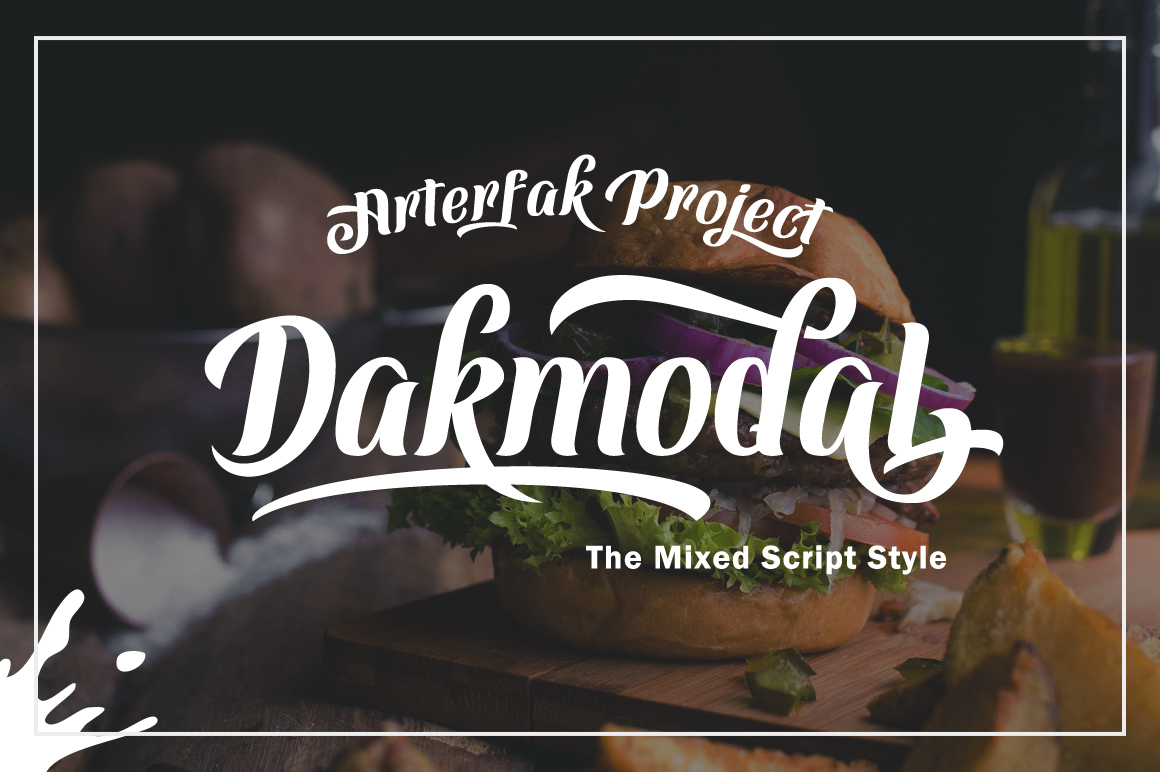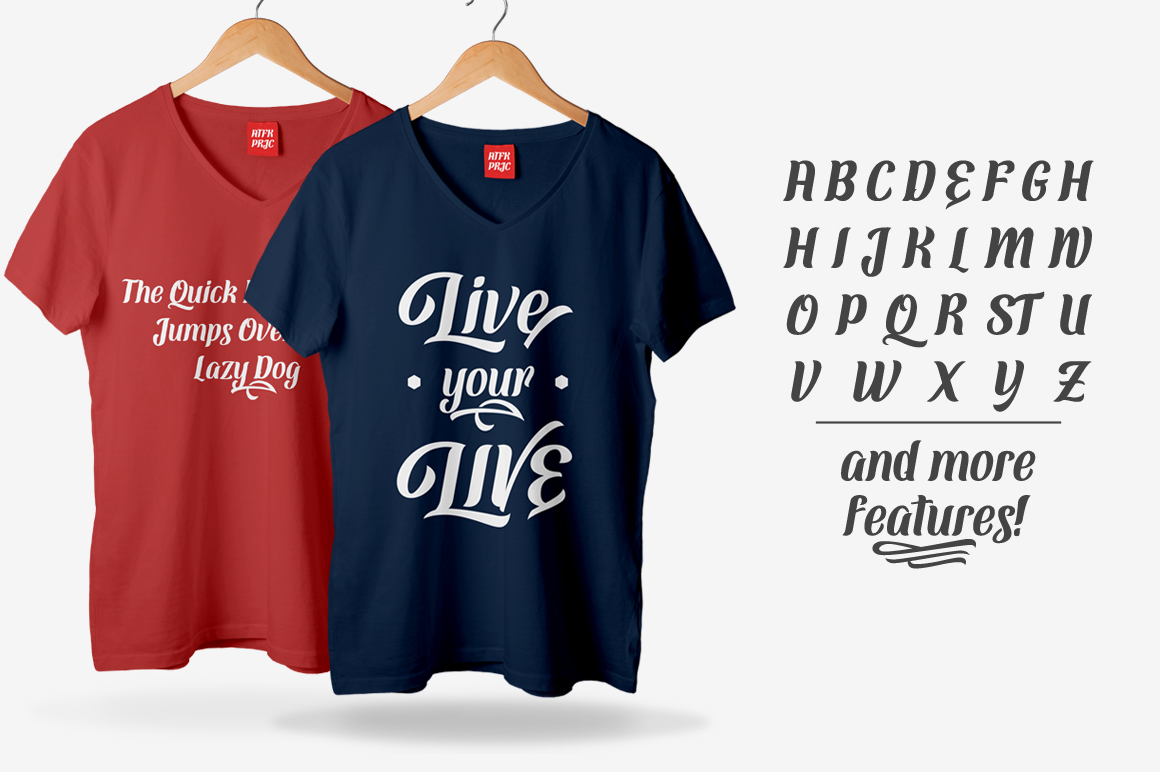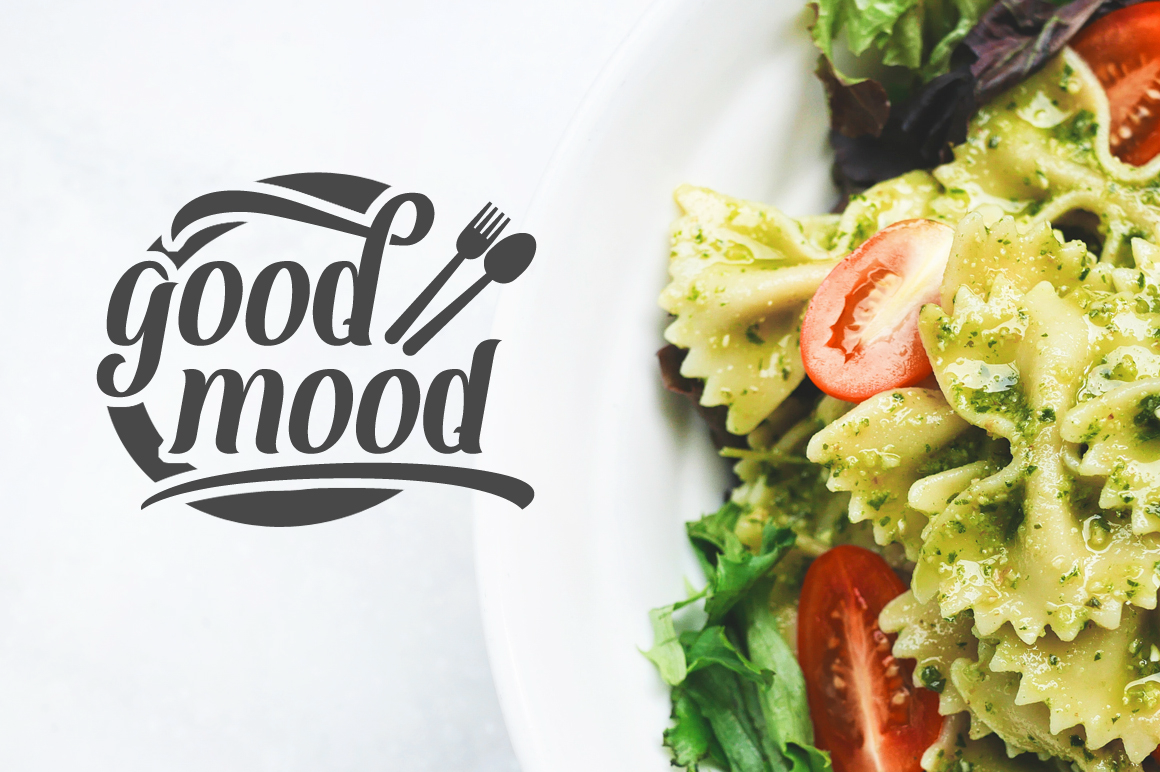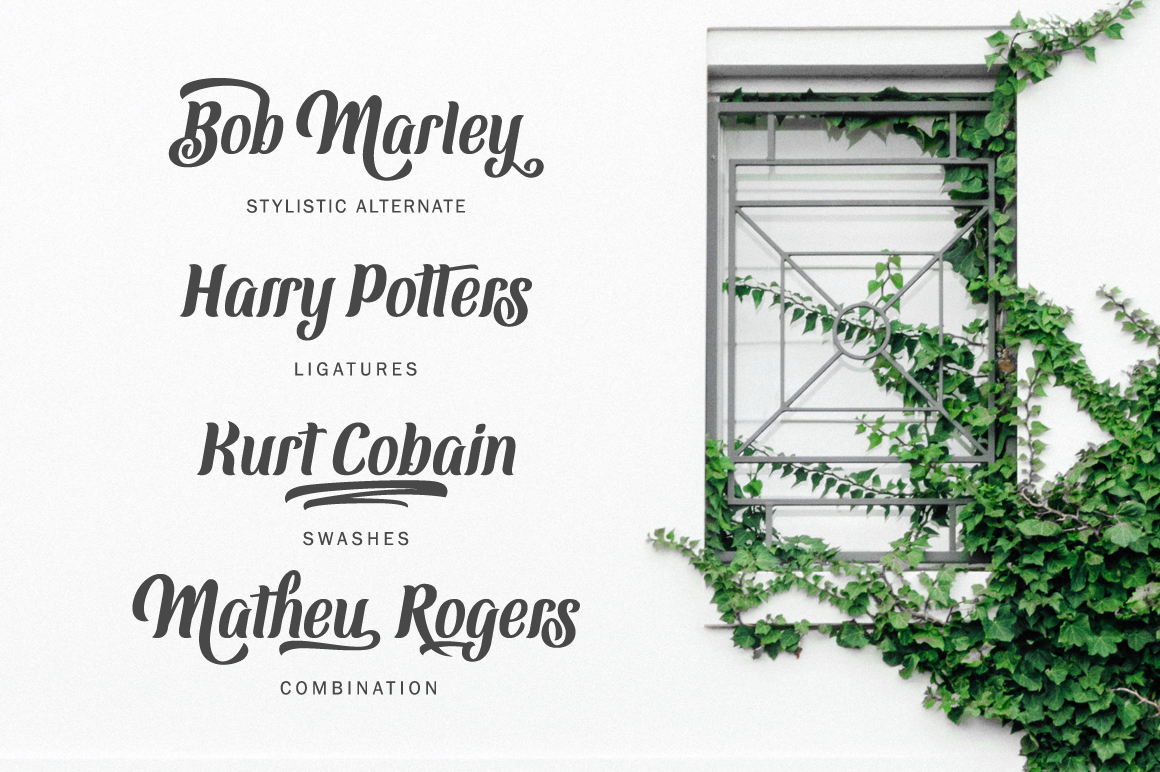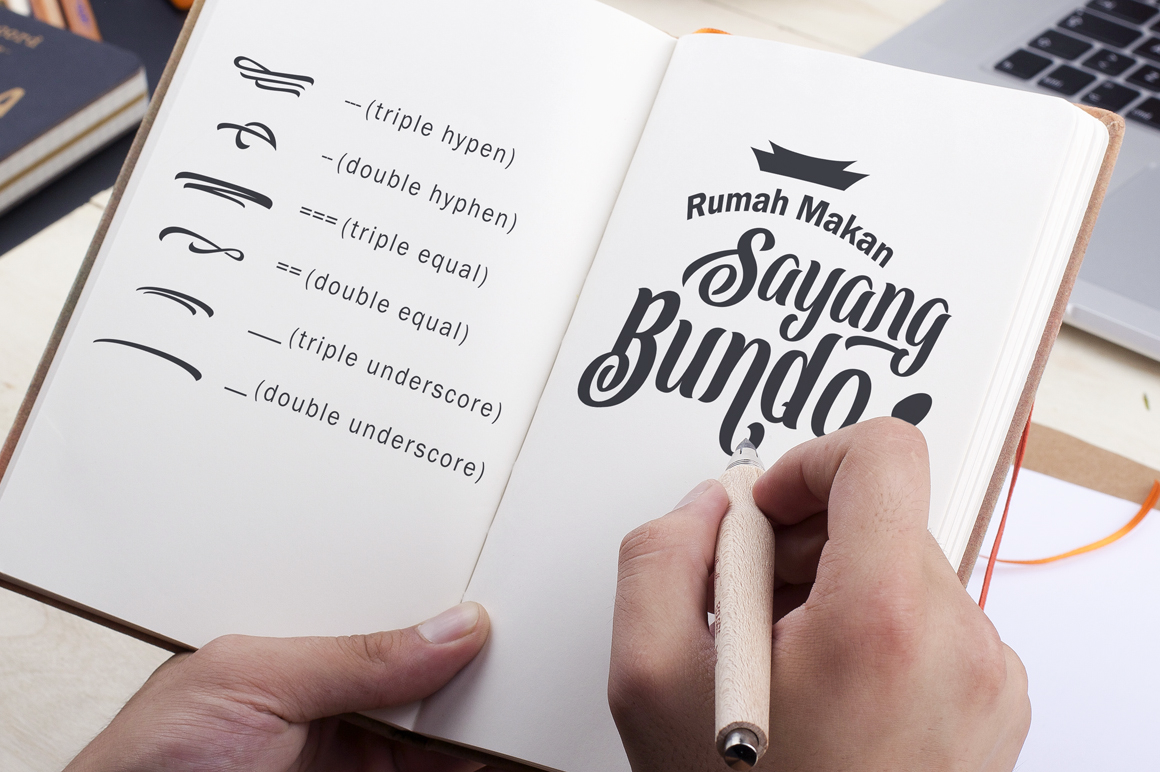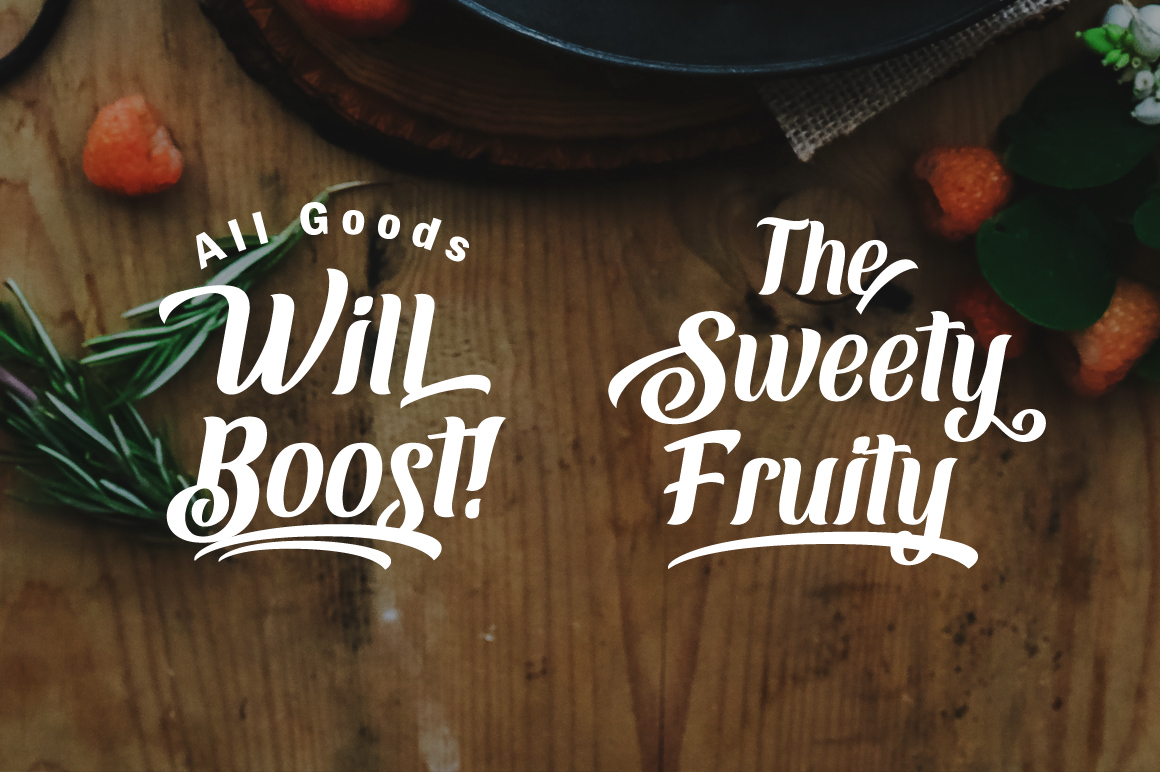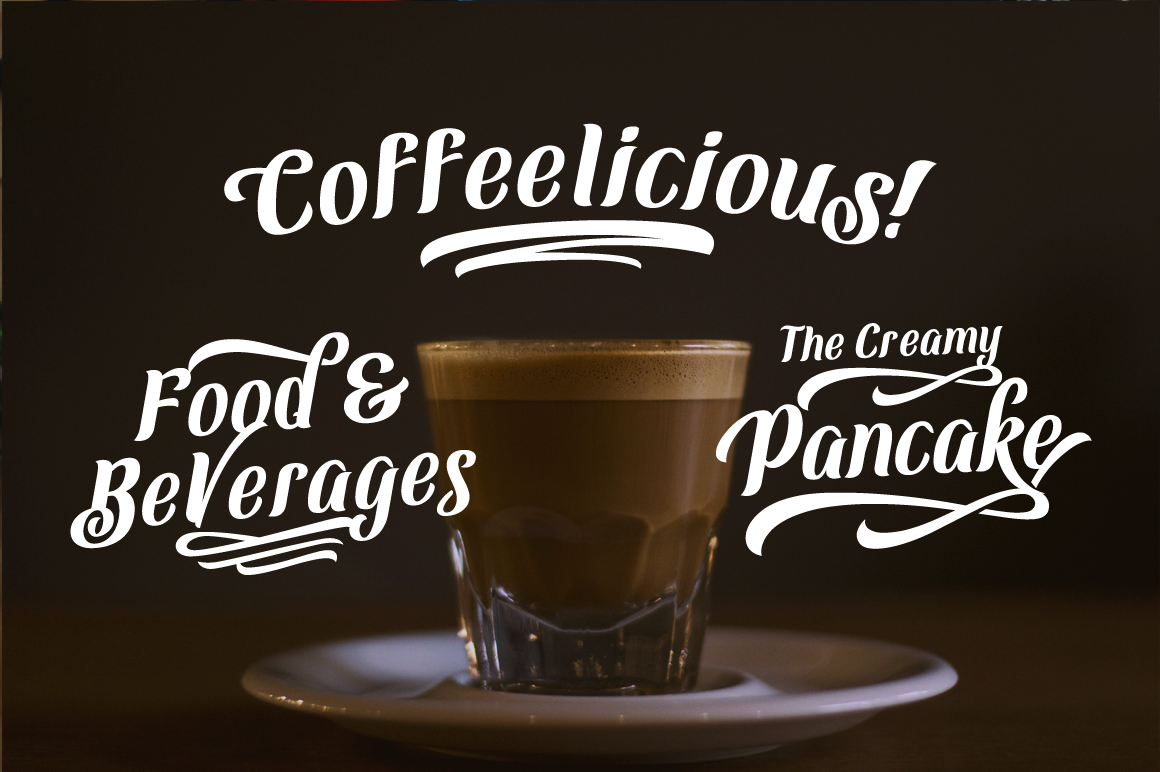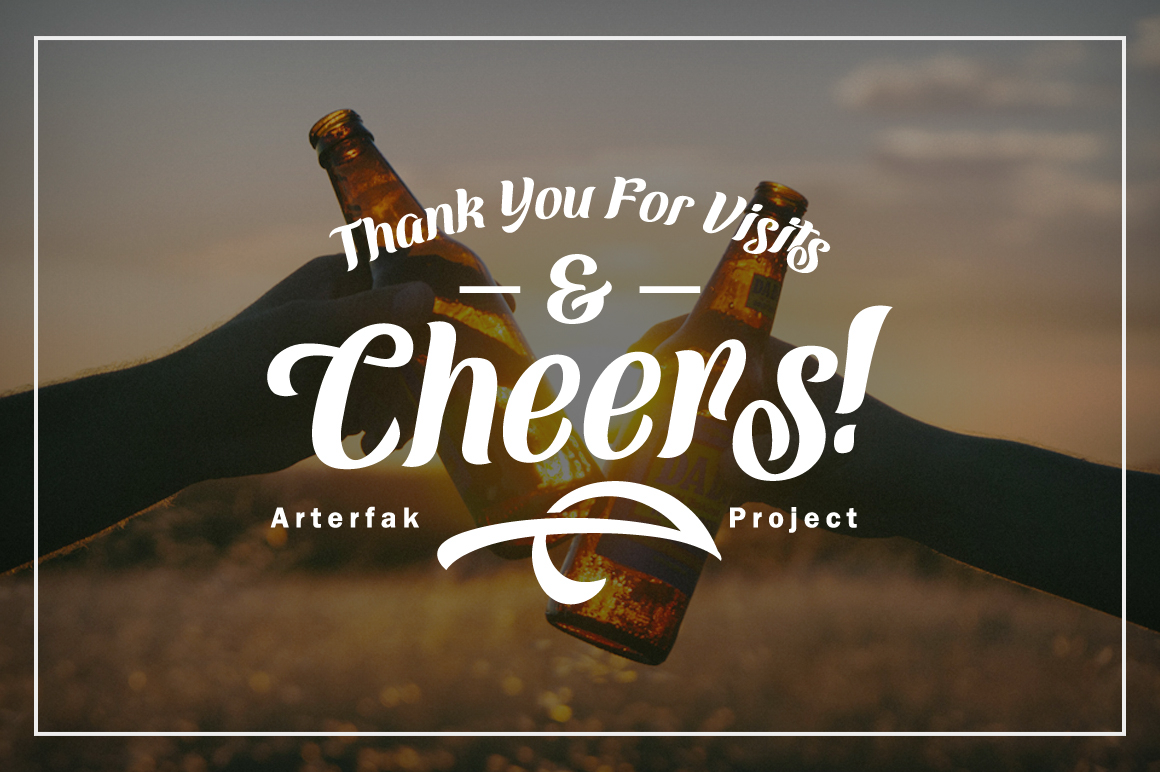
Dakmodal Font
About Dakmodal Font
The Dakmodal font is a stunning brush lettered typeface.
This semi-formal font with unconnected letters has a flexible look and feel.